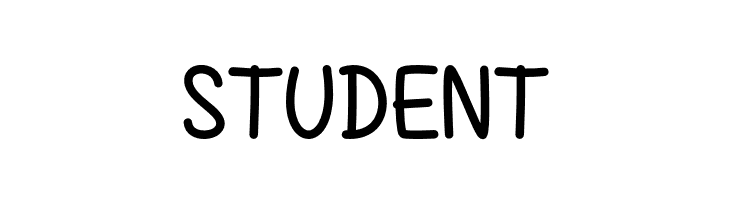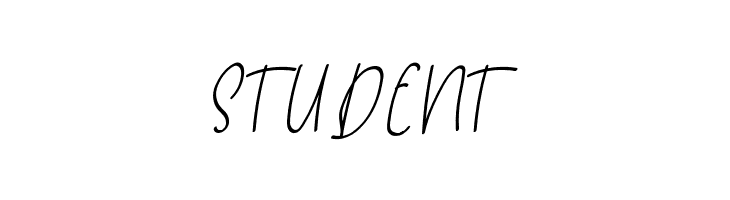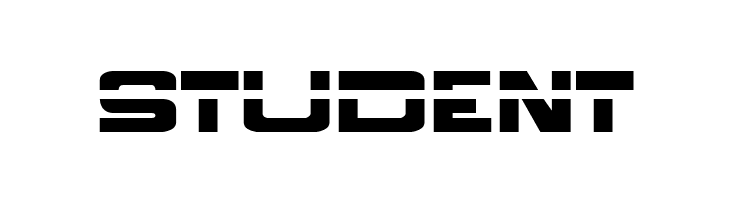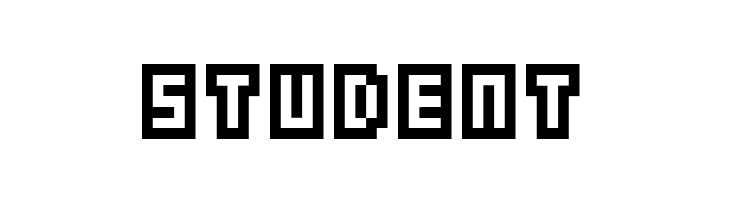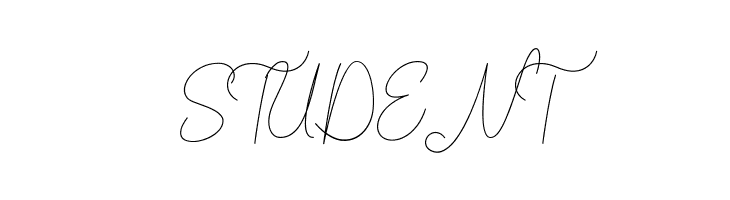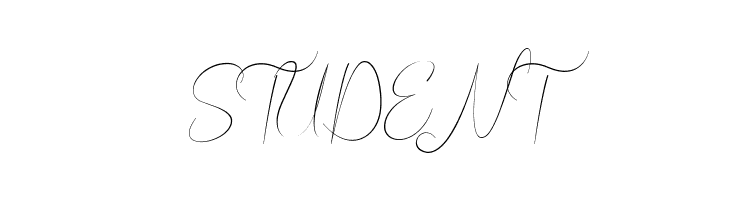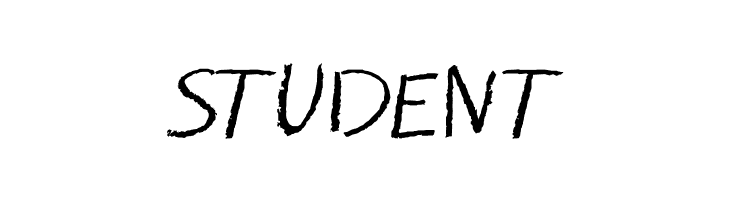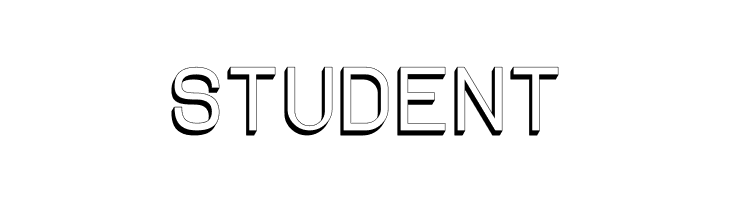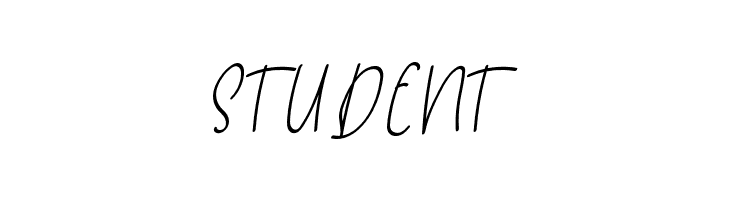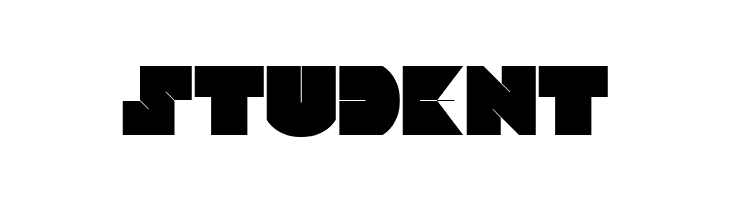
A playful, hand-drawn font with rounded, consistent strokes and a casual style.
Ornamental geometric borders with pointed, Islamic-inspired edges.
A playful, handwritten font with rounded edges and consistent stroke width.
A graceful monoline script font with elegant, flowing curves.
A delicate and elegant script font with flowing, graceful strokes.
A bold, pixelated font with a retro, digital aesthetic.
An elegant and sophisticated font with graceful curves and tapered strokes.
A playful, hand-drawn font with a crayon-like texture.
A bold, modern font with a strong and commanding presence.
A playful, graffiti-inspired font with bold, irregular strokes and a hand-drawn look.
A playful, hand-drawn font with doodle-like patterns and a whimsical style.
A bold, geometric font with angular shapes and high contrast, perfect for modern designs.
A modern, geometric font with bold, uniform strokes and squared edges.
A lively and expressive handwritten font with fluid strokes.
A dynamic, expressive handwritten font with fluid cursive letterforms.
A modern geometric sans-serif font with uniform width and clean lines.
A modern, geometric sans-serif font with a clean and minimalistic design.
A bold, 3D-effect font with a modern, geometric style.
A geometric sans-serif font with a bold, modern style and consistent stroke width.
A bold, oblique font with a modern and dynamic style.
A bold, geometric font with a futuristic, industrial design.
A bold, angular font with a futuristic, sci-fi aesthetic.
A bold, 3D font with a futuristic and dynamic style.
A bold, angular, and futuristic condensed font with tight spacing.
A bold, condensed, and italicized font with a futuristic and angular design.